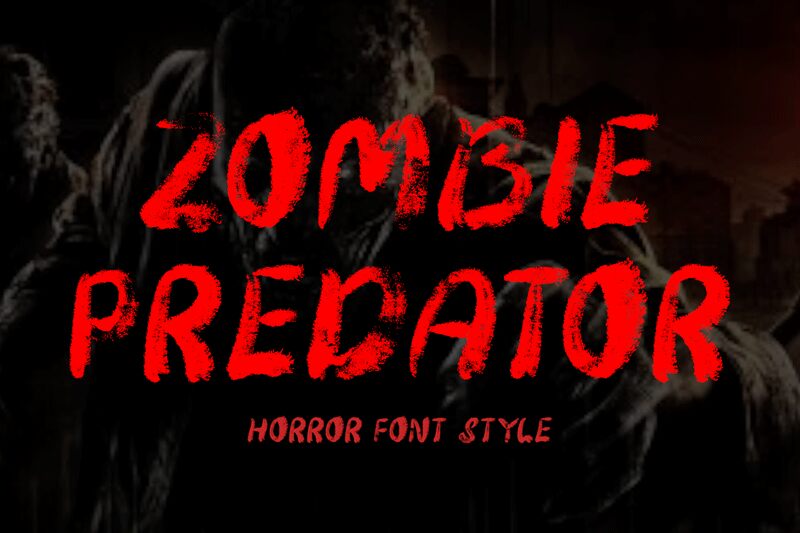
Zombie Predator
"Zombie Predator" by Yoga Letter is a spine-chilling horror display font perfect for adding a terrifying touch to your projects.
This semi-light, holiday-themed typeface is ideal for creating spooky movie titles, Halloween-themed designs, banners, posters, stickers, and even branding materials. With its uppercase and lowercase characters, numerals, punctuation marks, and multilingual support, this font offers versatility for various creative endeavors. Whether you're designing book titles that send shivers down the reader's spine or crafting eerie promotional materials for haunted attractions, "Zombie Predator" will ensure your project stands out with its frightful charm.
Unleash the undead spirit with this hair-raising font!